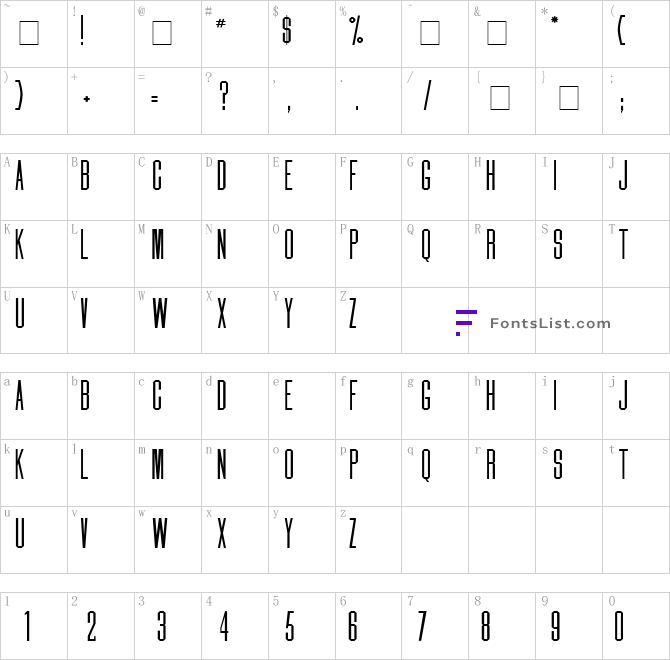
- Font Name:Daily
Daily-Medium.ttf is a very beautiful artistic font, Daily-Medium.ttf is widely used in the design and printing of various books and pictures,Daily-Medium.ttf has a strong visual impact,Daily-Medium.ttf is a commonly used font in newspapers, magazines and books, and is used in posters, e-commerce Poster design, store design, logo design, font design and other fields.Daily-Medium.